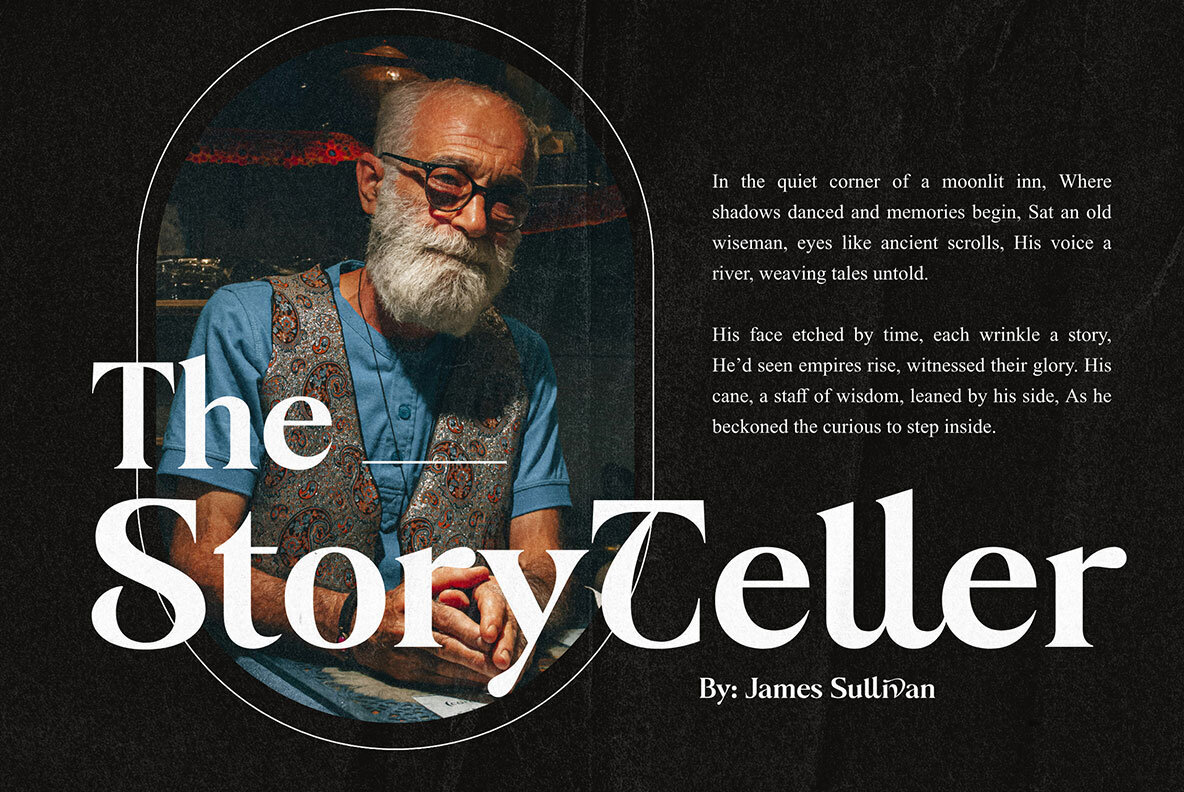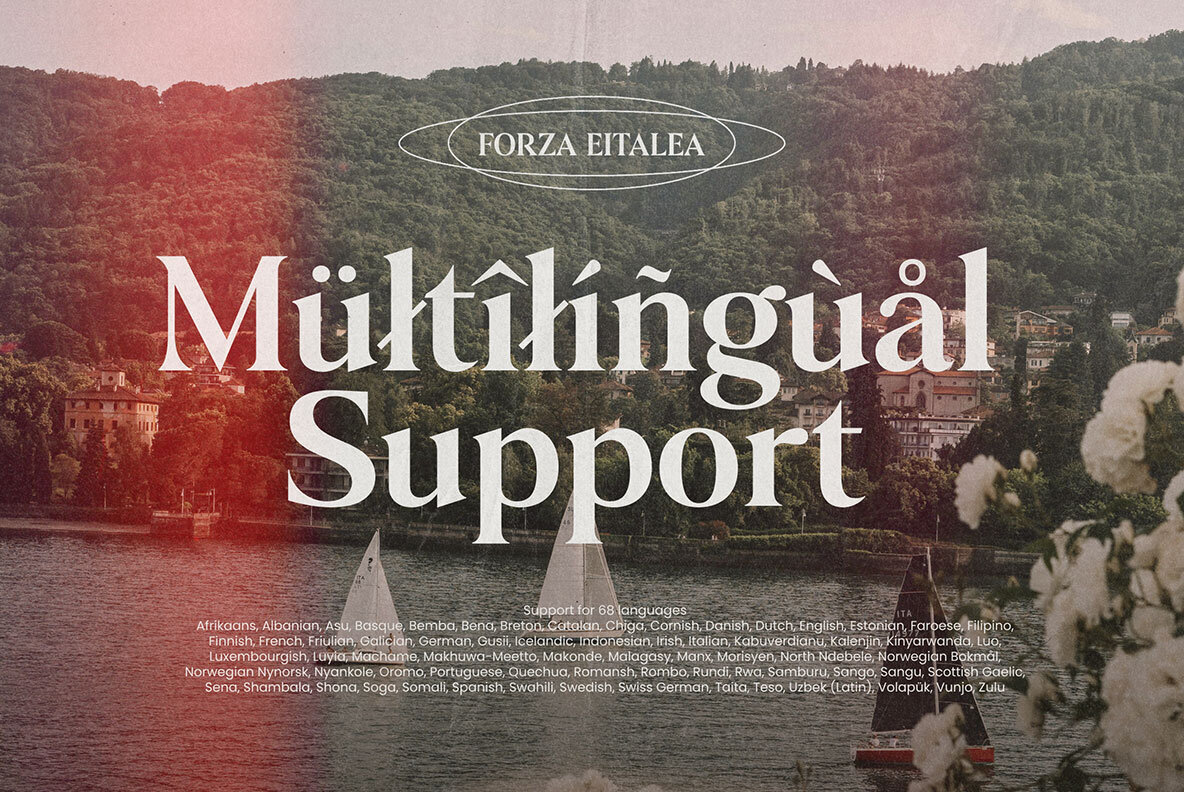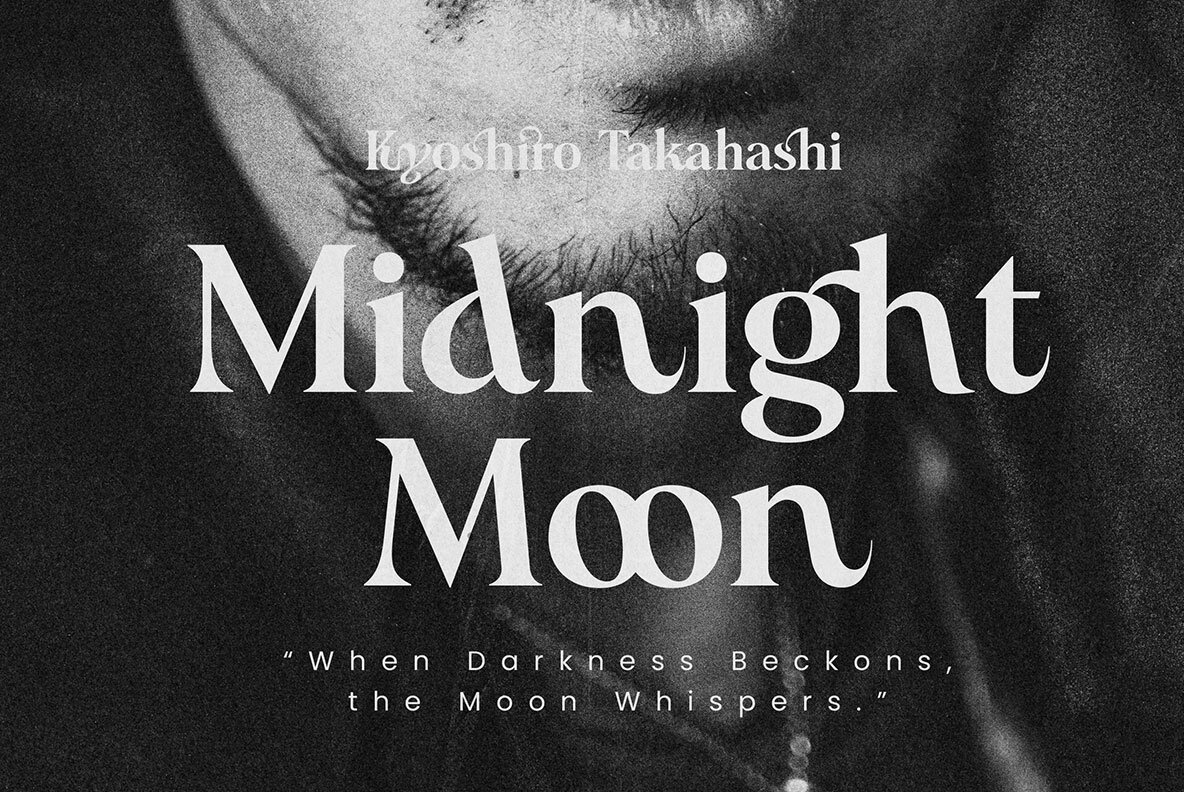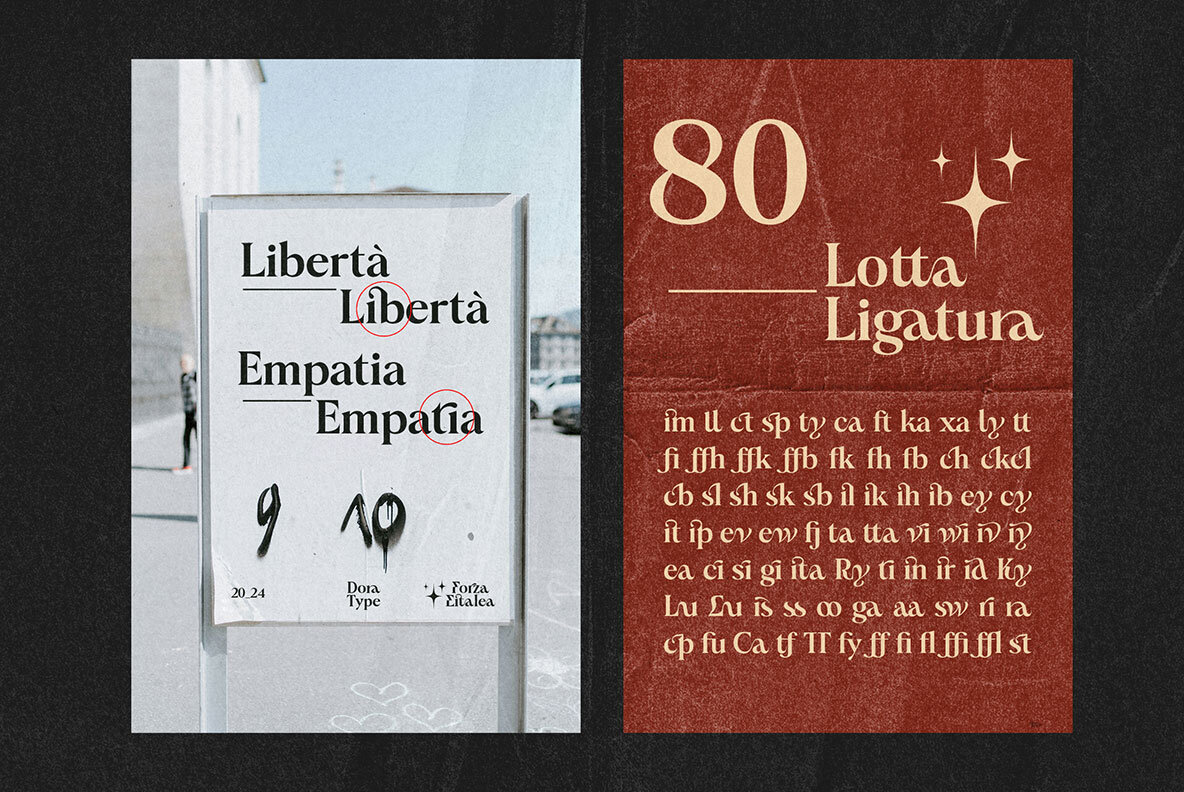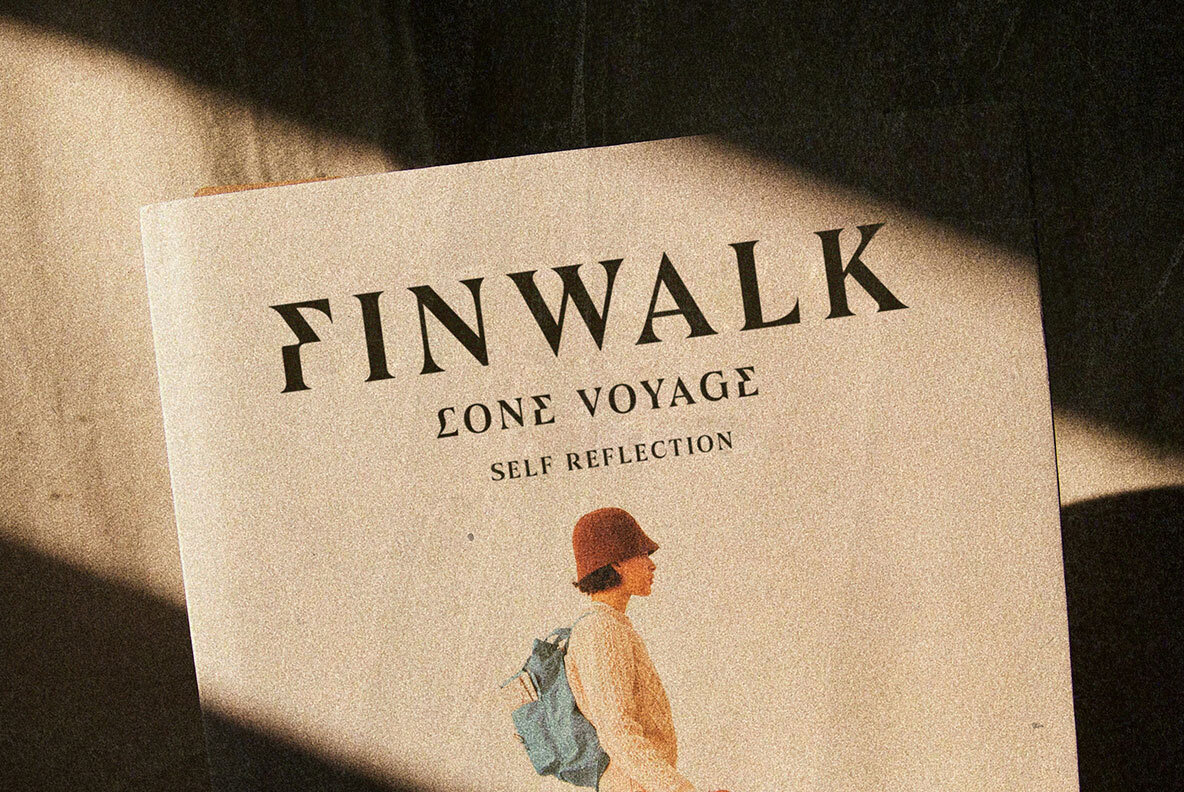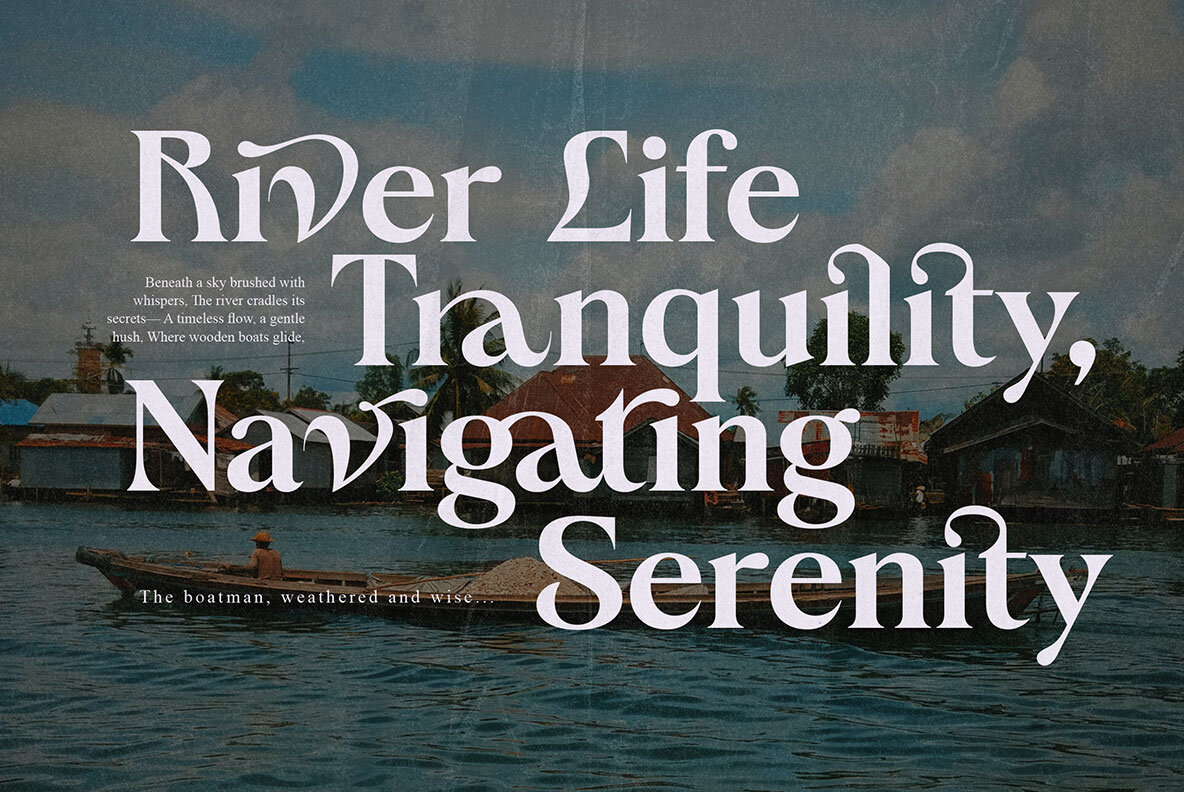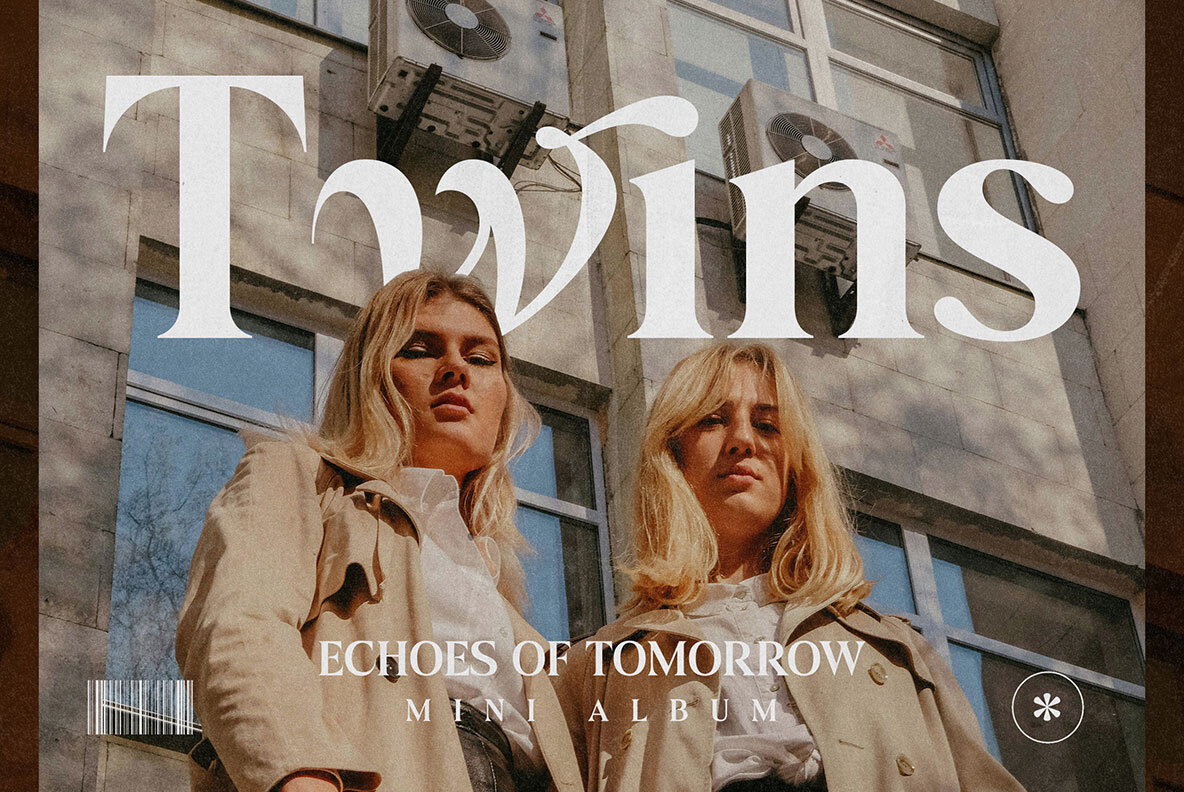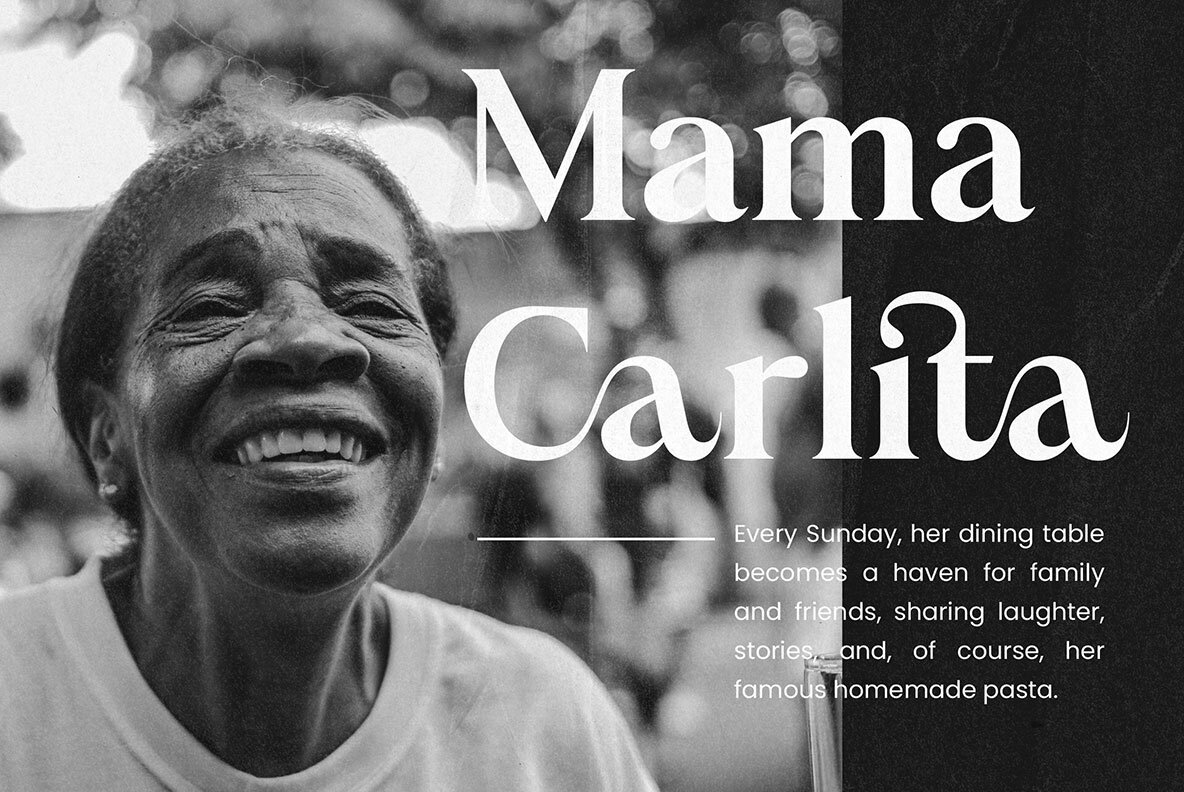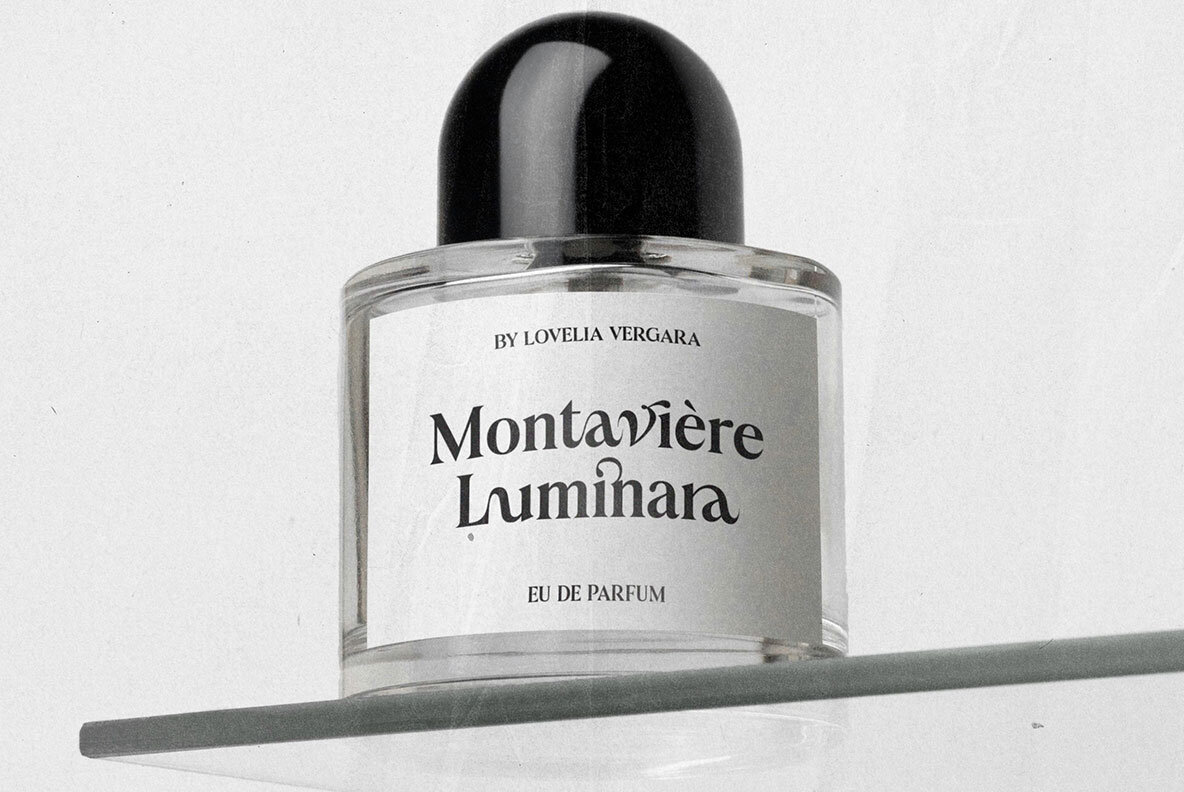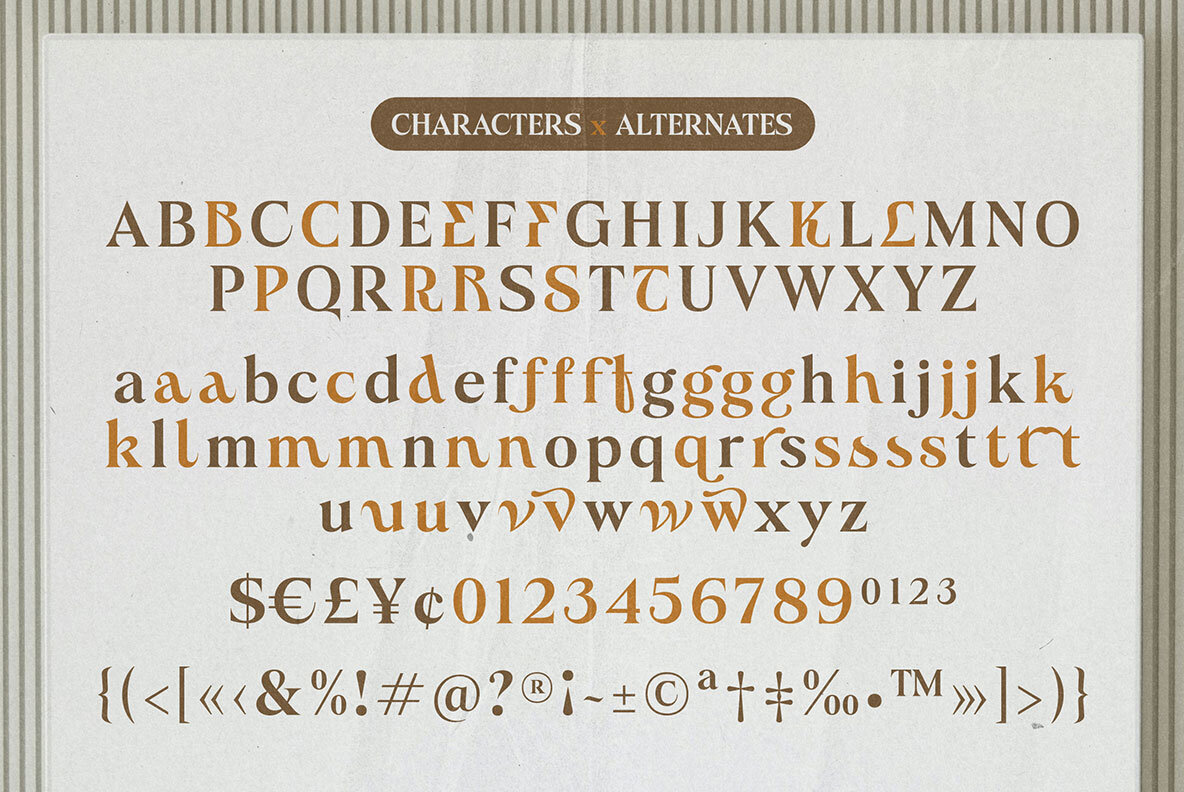
Forza Eitalea Font
Forza Eitalea Regular
Introducing Forza Eitalea is a classic and classy modern serif typeface that radiates and is bold and looks amazing in both large and small settings. Forza Eitalea also has a wide selection of alternatives and ligatures ideal for any project that requires a touch of vintage charm and a modern aesthetic. Features